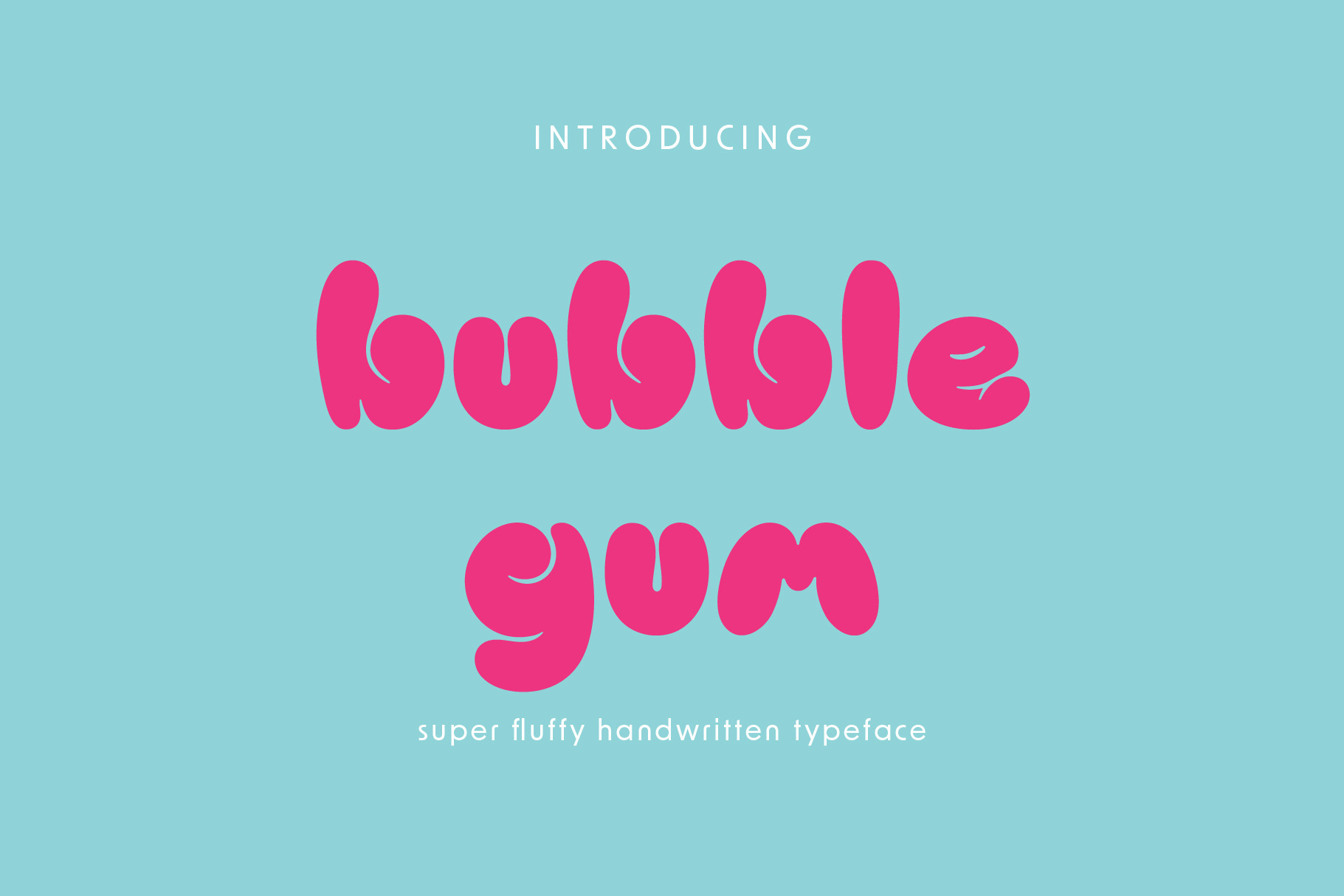
PGR Bubblegum - Bubble Font
Get ready to blow some bubbles with our newest font, PGR Bubblegum! This handmade sans-serif font is bursting with fun and personality, making it perfect for designs that need a playful touch.